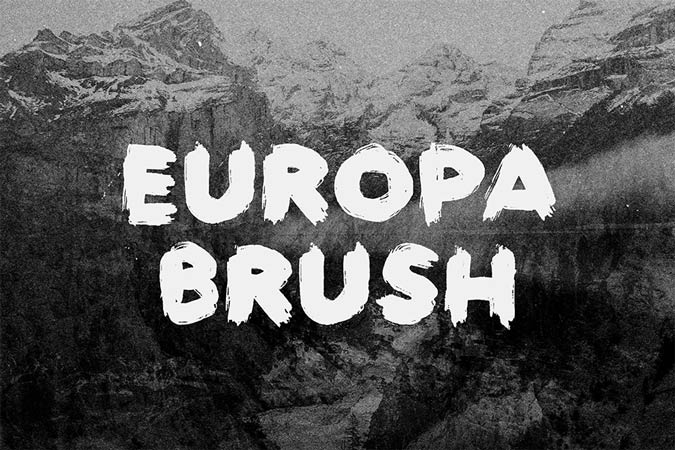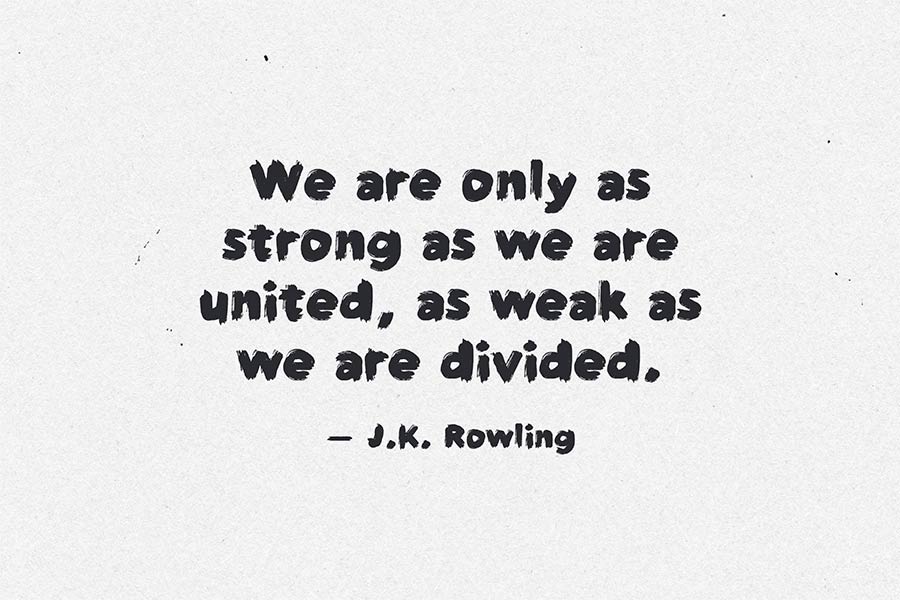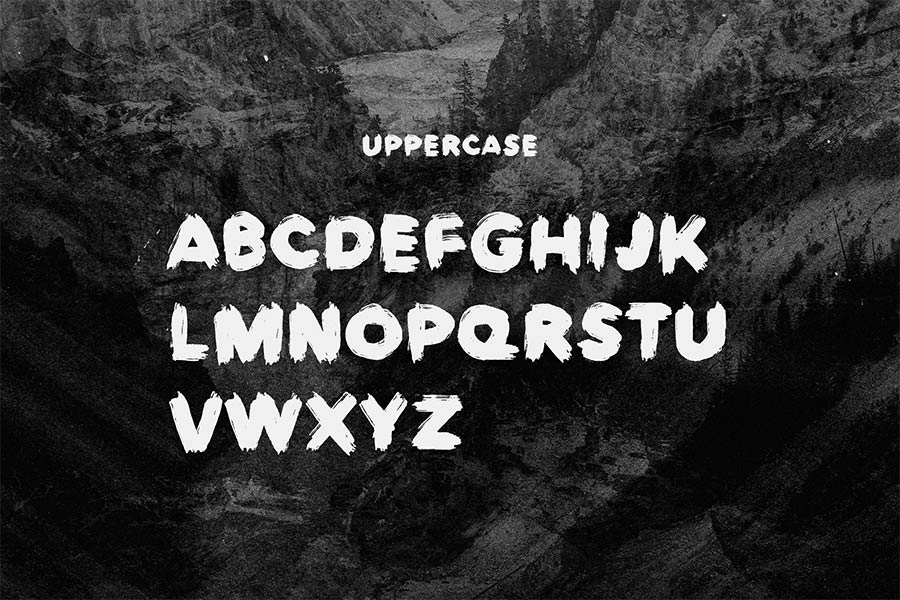
Europa Brush is a textured sans-serif font and is free to download. It’s perfect for use in displays, branding, logos, poster designs and many more. According to the font designer, Harry, his aim in the font design was to create a bold but yet natural painterly feel with heavy brush strokes textures.
Europa Brush comes with the basic latin characters including uppercases, lowercases, numerals and punctuations.